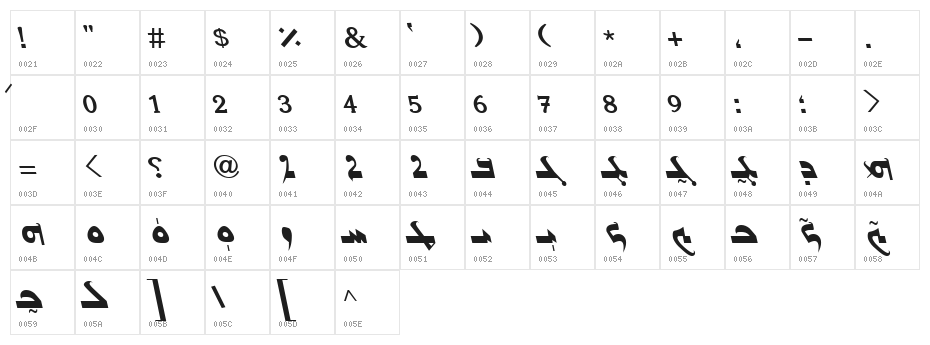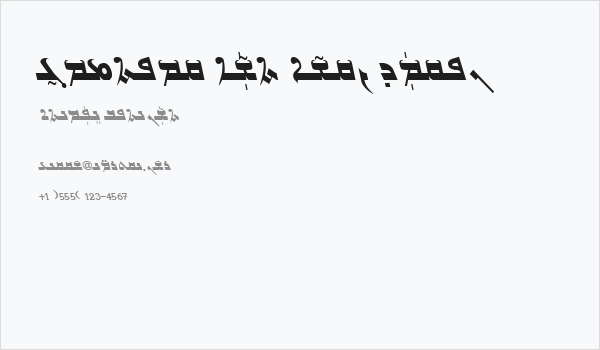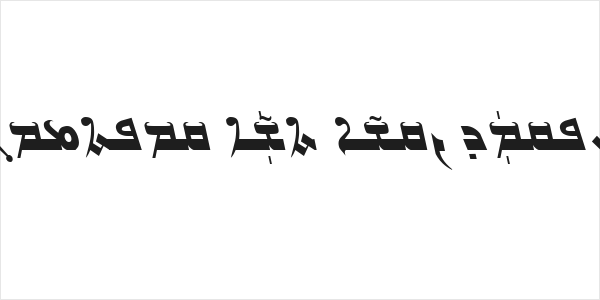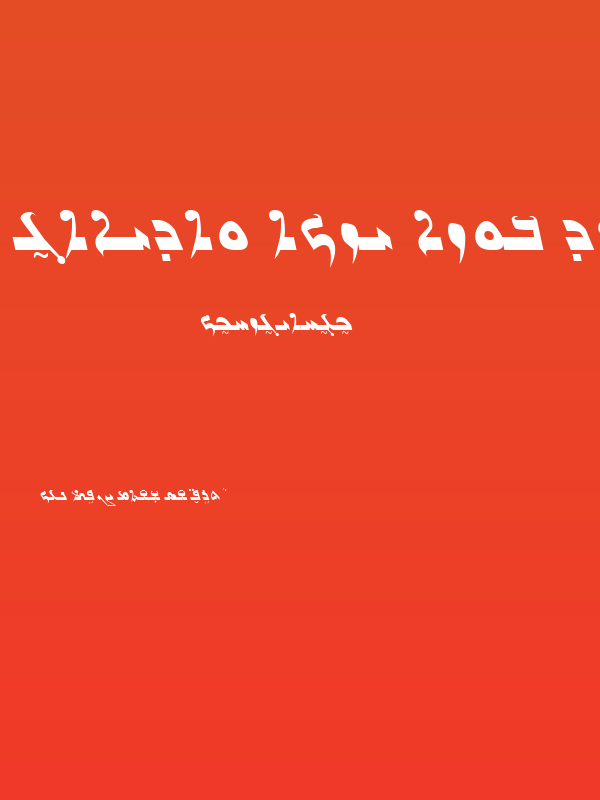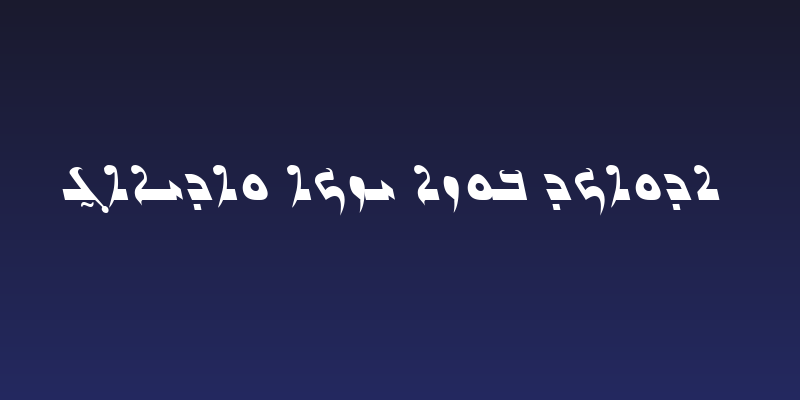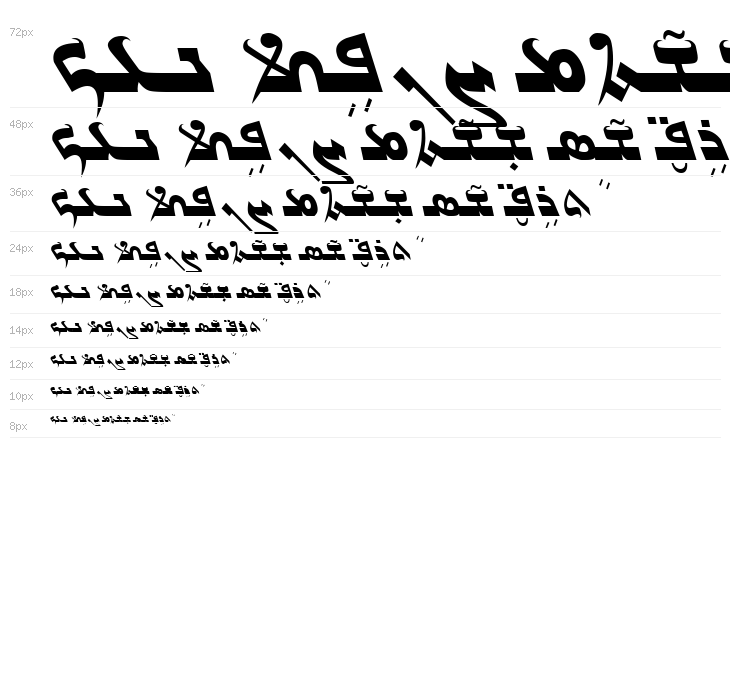
Gabrial Ator Bold Italic Font
Gabrial Ator Bold Italic Description
This font features a bold and italicized style with a distinct decorative flair. The characters are heavily stylized, with exaggerated curves and sharp angles that give it a unique and artistic appearance. The uppercase letters are particularly striking, with a strong presence that commands attention. The lowercase letters maintain the same decorative elements, ensuring consistency throughout the font. Numbers and special characters are also included, each designed with the same bold and italicized characteristics. This font is ideal for projects that require a strong visual impact and a touch of creativity.
| Use Case | Logos, Posters, Branding |
| Proposed Projects | Ideal for posters, logos, branding, and any project needing a bold artistic touch. |